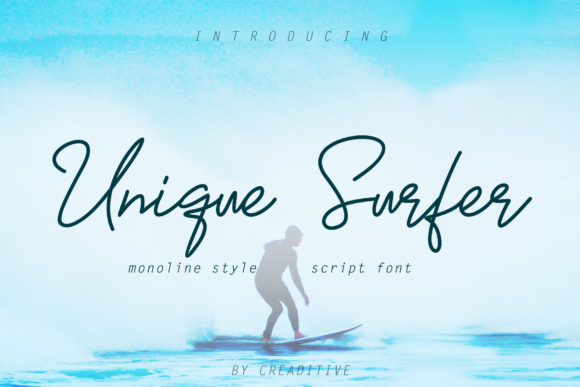
Prepare yourself to be swept away by the waves of creativity with Unique Surfer, an extraordinary monoline script font that will transform your designs into captivating masterpieces. Dive into the depths of elegance with its bold and dynamic elements, leaving an unforgettable impression on your audience.
With Unique Surfer, you'll embark on a journey of artistic expression, where your designs will dance and flow with an unmatched grace and personality. Its monoline structure adds a touch of sophistication, while its bold strokes exude a sense of power and confidence.
Imagine your logos, branding, and social media posts radiating with a magnetic charm that draws eyes and captivates hearts. Unique Surfer's ability to evoke emotions and create a lasting impact makes it the perfect choice for designers seeking to leave a lasting impression.
Unique Surfer is not just a font; it's an experience. It's a journey into the realm of creativity, where imagination knows no bounds. Unleash your inner artist and let Unique Surfer be your guide as you craft designs that tell stories, evoke emotions, and leave a profound impact on your audience.